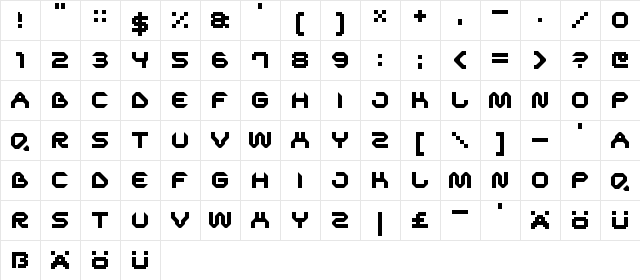
superfluid _soft
Design Context for superfluid Typeface
superfluid takes a measured approach to typography — its balanced proportions and neutral character make it a reliable workhorse for both digital and print work.